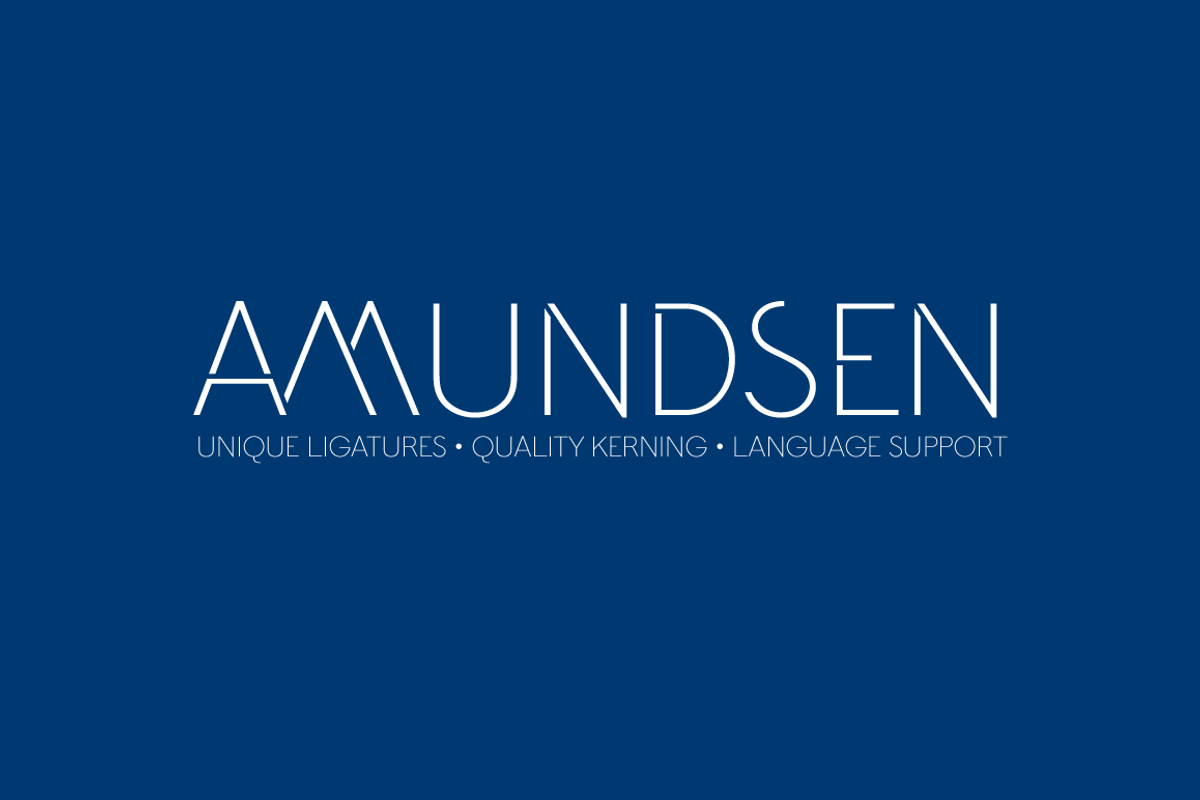
Amundsen Font
Amundsen Font by Juraj Chrastina is a font selected for branding, posters, packaging, typography.
- The font is equipped with automatic discretionary ligatures and it comes with a fine-tuned kerning.
- As the ligatures combine light letters, the overall look remains balanced even with wider display oriented spacing.
Why Amundsen Font is worth a look
Amundsen Font by Juraj Chrastina fits naturally into Branding, posters, packaging, typography.